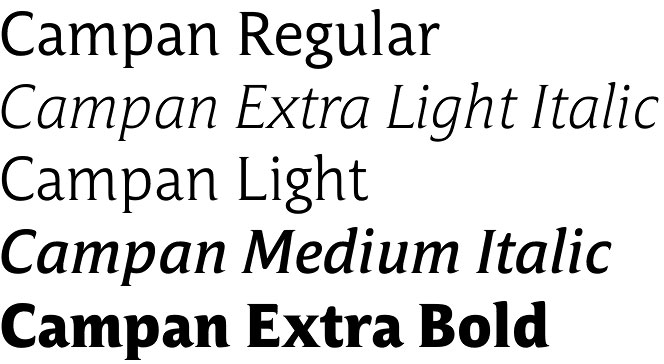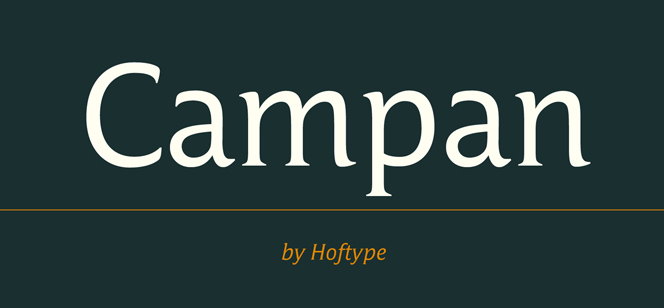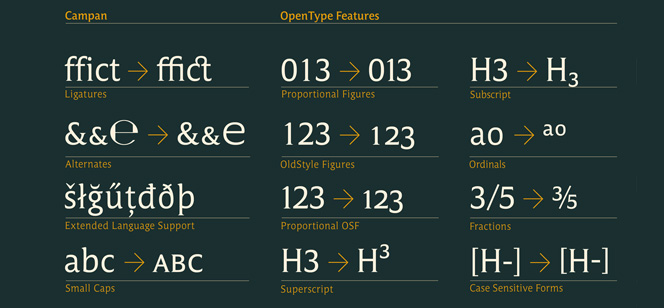
Campan font
Campan font by Dieter Hofrichter (Hoftype foundry) is a contemporary “old styler”, uniting mono-line and classic elements. It features strong presence in headlines, and thanks to its tall x-height shows also an excellent legibility in text applications. The Campan font family consists of 12 variations – six weights (from Extra Light to Extra Bold) and their Italics.
Campan font offers a lot of OpenType options in all weights: ligatures, small caps, proportional lining figures, tabular lining figures, proportional old style figures, lining old style figures, matching currency symbols, fraction- and scientific numerals and matching arrows. It comes armed with extended language support.
You will find Campan font family versatile, suited for ambitious typography, and helpful in a wide range of design tasks.